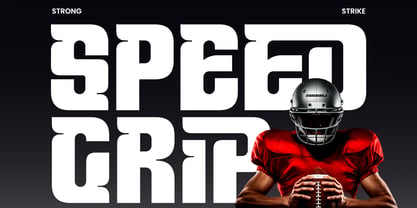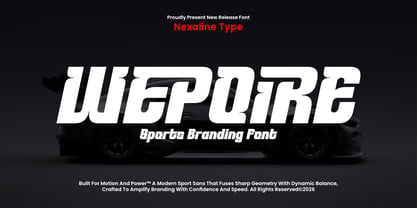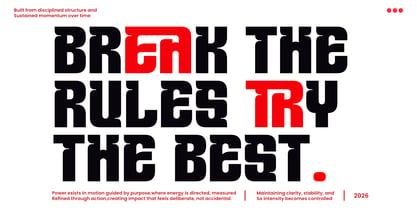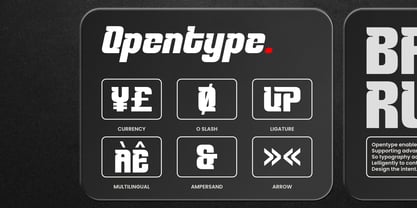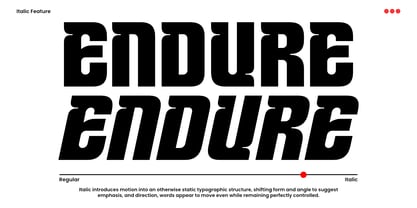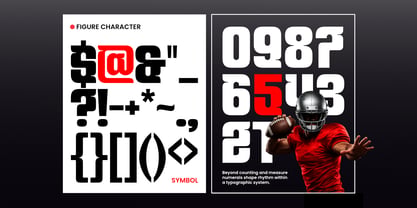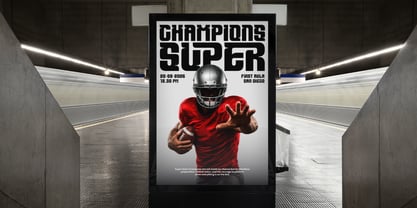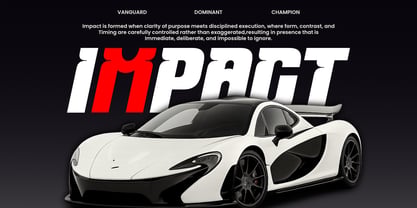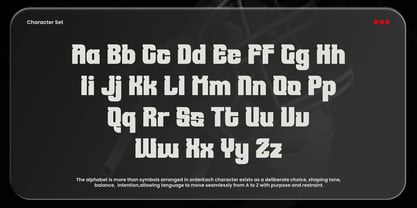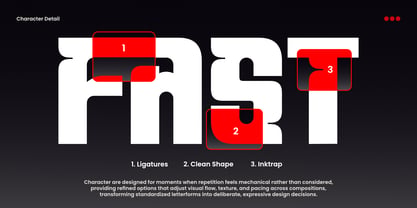
Wepoire
by Nexaline Type
The Wepoire Font Family was designed by Anggi Surya and published by Nexaline Type. Wepoire contains 2 styles and family package options. More about this family
Wepoire — Sports Branding Font is a bold display typeface designed for powerful visual identity and competitive branding. With sharp letterforms, heavy stroke weight, and a strong forward-driven construction, Wepoire delivers an aggressive and energetic typographic voice that stands out in high-impact design environments. Designed to emphasize strength, speed, and visual dominance, this typeface balances bold structure with clear readability, making it suitable for branding-focused applications that require confidence and performance-driven aesthetics. Balanced proportions and decisive detailing make Wepoire adaptable while maintaining a distinctive sports-oriented character. Whether used for team logos, esports branding, event headlines, or apparel graphics, this typeface adds intensity and modern competitiveness to contemporary design projects. Features Uppercase & Lowercase Numbers & Punctuation Sharp Athletic Construction Multilingual Support (170+ Languages) Have a nice day !
Designers: Anggi Surya
Foundry: Nexaline Type